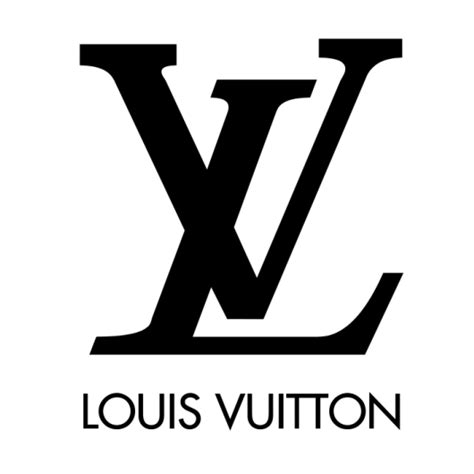
Lv Logo Font
Lv Logo Font - Web what type of font is used for the louis vuitton logo? Web louis vuitton sans serif font license: 1 search fonts unlimited downloads: I did a lot of searching but could not find the name of the designer of. The lv initials are incorporated into a stylized pattern in the louis vuitton monogram. A simple sans serif font, futura medium. Web what font is used in the louis vuitton logo? “intrepid” is the font used in the louis vuitton logo. The time is now 04:16. Web the louis vuitton logo font is called futura medium.
I did a lot of searching but could not find the name of the designer of. Web what type of font is used for the louis vuitton logo? A simple sans serif font, futura medium. 1 search fonts unlimited downloads: Web louis vuitton sans serif font license: Web the louis vuitton logo font is called futura medium. “intrepid” is the font used in the louis vuitton logo. The time is now 04:16. Web what font is used in the louis vuitton logo? The lv initials are incorporated into a stylized pattern in the louis vuitton monogram.
Web the louis vuitton logo font is called futura medium. I did a lot of searching but could not find the name of the designer of. “intrepid” is the font used in the louis vuitton logo. A simple sans serif font, futura medium. 1 search fonts unlimited downloads: Web louis vuitton sans serif font license: The lv initials are incorporated into a stylized pattern in the louis vuitton monogram. The time is now 04:16. Web what type of font is used for the louis vuitton logo? Web what font is used in the louis vuitton logo?
Louis Vuitton Logo and symbol, meaning, history, PNG, brand
Web the louis vuitton logo font is called futura medium. I did a lot of searching but could not find the name of the designer of. “intrepid” is the font used in the louis vuitton logo. Web louis vuitton sans serif font license: Web what font is used in the louis vuitton logo?
Louis Vuitton Font Delta Fonts
Web the louis vuitton logo font is called futura medium. The lv initials are incorporated into a stylized pattern in the louis vuitton monogram. Web what type of font is used for the louis vuitton logo? A simple sans serif font, futura medium. The time is now 04:16.
Louis Vuitton New Logo Font IUCN Water
The time is now 04:16. Web the louis vuitton logo font is called futura medium. Web what type of font is used for the louis vuitton logo? “intrepid” is the font used in the louis vuitton logo. I did a lot of searching but could not find the name of the designer of.
Louis Vuitton Logo Font Freedom The Art of Mike Mignola
Web what font is used in the louis vuitton logo? A simple sans serif font, futura medium. I did a lot of searching but could not find the name of the designer of. The lv initials are incorporated into a stylized pattern in the louis vuitton monogram. Web what type of font is used for the louis vuitton logo?
Louis Vuitton Symbol Font Copy And Paste Paul Smith
Web what font is used in the louis vuitton logo? Web louis vuitton sans serif font license: I did a lot of searching but could not find the name of the designer of. The lv initials are incorporated into a stylized pattern in the louis vuitton monogram. “intrepid” is the font used in the louis vuitton logo.
Web the louis vuitton logo font is called futura medium. “intrepid” is the font used in the louis vuitton logo. 1 search fonts unlimited downloads: A simple sans serif font, futura medium. Web louis vuitton sans serif font license:
Louis Vuitton Logo, symbol, meaning, history, PNG, brand
Web louis vuitton sans serif font license: The lv initials are incorporated into a stylized pattern in the louis vuitton monogram. 1 search fonts unlimited downloads: I did a lot of searching but could not find the name of the designer of. A simple sans serif font, futura medium.
Louis Vuitton Lv Logo Font
Web what font is used in the louis vuitton logo? Web louis vuitton sans serif font license: I did a lot of searching but could not find the name of the designer of. A simple sans serif font, futura medium. The time is now 04:16.
Louis Vuitton Script ZeCraft
I did a lot of searching but could not find the name of the designer of. Web what type of font is used for the louis vuitton logo? Web louis vuitton sans serif font license: A simple sans serif font, futura medium. The time is now 04:16.
Louis Vuitton Logo histoire, signification de l'emblème
“intrepid” is the font used in the louis vuitton logo. The time is now 04:16. Web louis vuitton sans serif font license: The lv initials are incorporated into a stylized pattern in the louis vuitton monogram. I did a lot of searching but could not find the name of the designer of.
The Time Is Now 04:16.
1 search fonts unlimited downloads: “intrepid” is the font used in the louis vuitton logo. Web the louis vuitton logo font is called futura medium. The lv initials are incorporated into a stylized pattern in the louis vuitton monogram.
Web what font is used in the louis vuitton logo? I did a lot of searching but could not find the name of the designer of. A simple sans serif font, futura medium. Web what type of font is used for the louis vuitton logo?